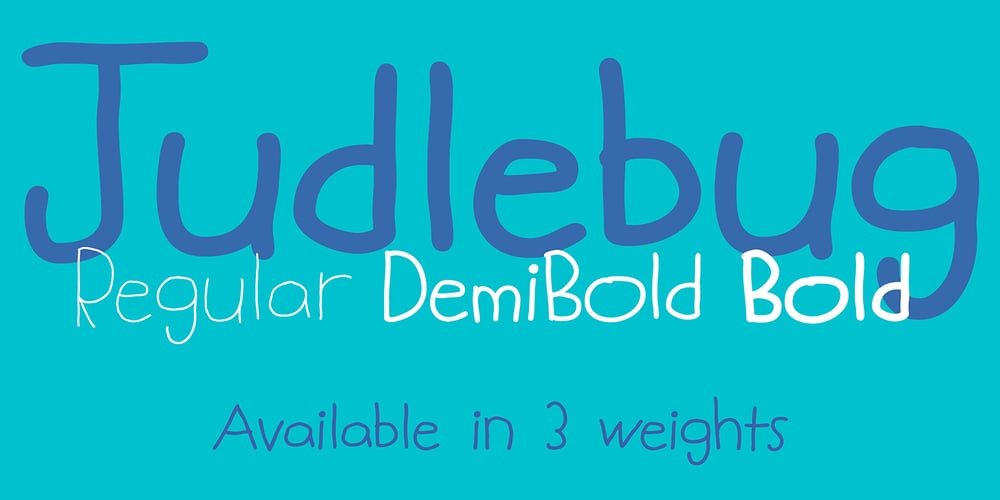
Judlebug Font Family was designed by published by Atlantic Fonts. Judlebug contains 3 styles and family package options. Confident, endearing and youthful, Judlebug is brimming with personality that’s hard to deny. Now available in 3 weights, Judlebug is ready to light things up!